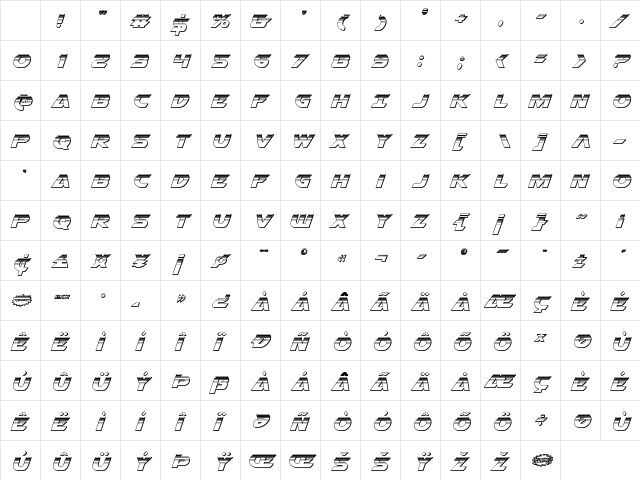
Complete Airstrike Platinum Regular glyph index. Displaying only characters natively supported by Airstrike Platinum Regular font.
Airstrike Platinum is a composed and adaptable typeface that performs quietly and consistently across a wide range of design contexts.